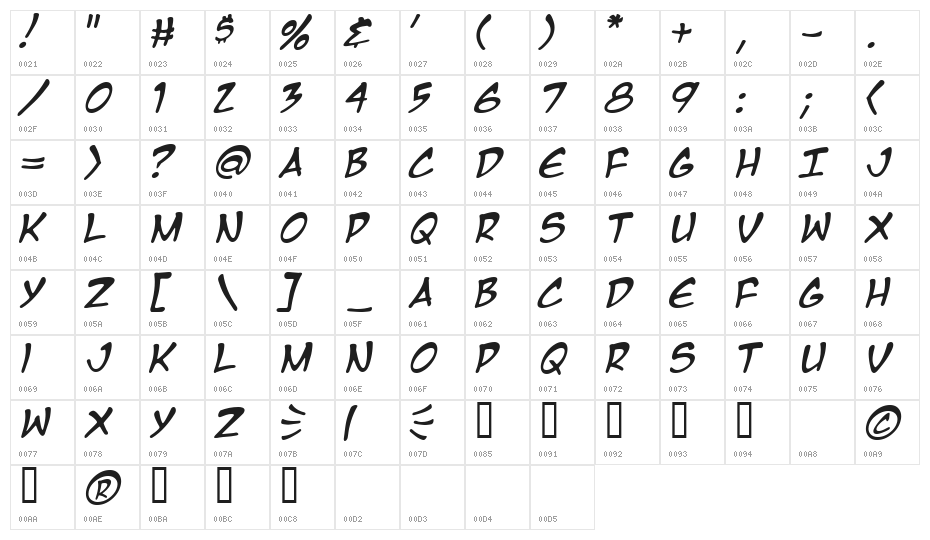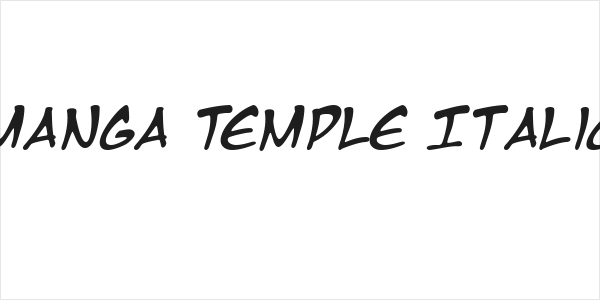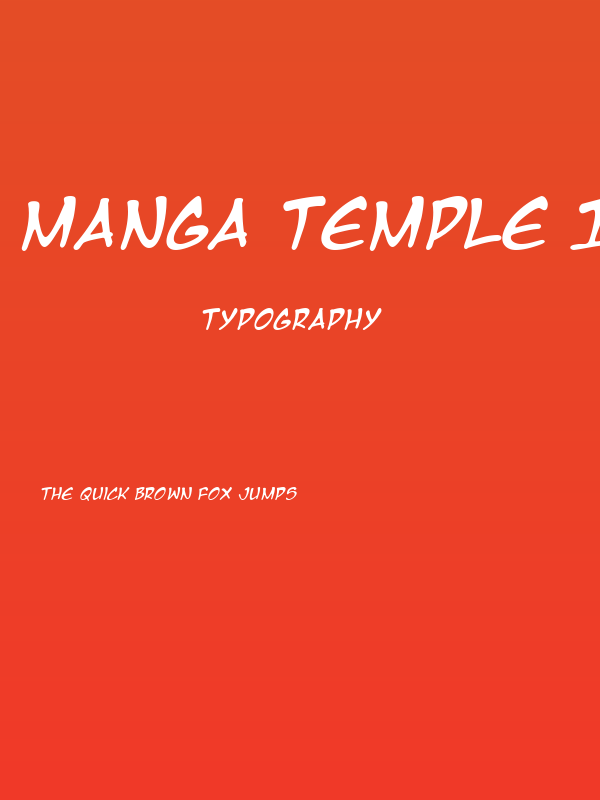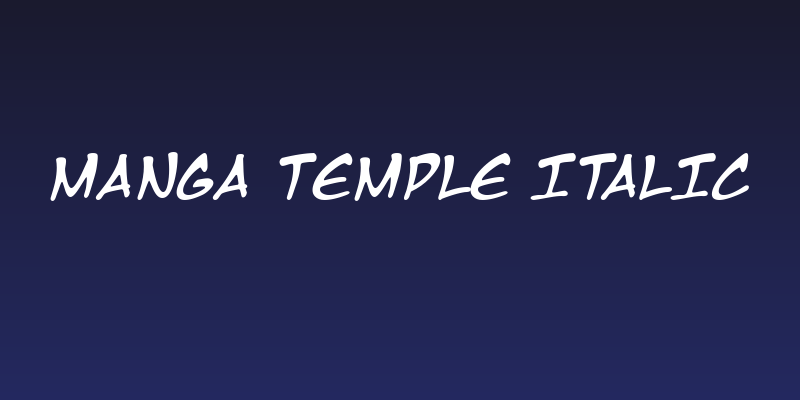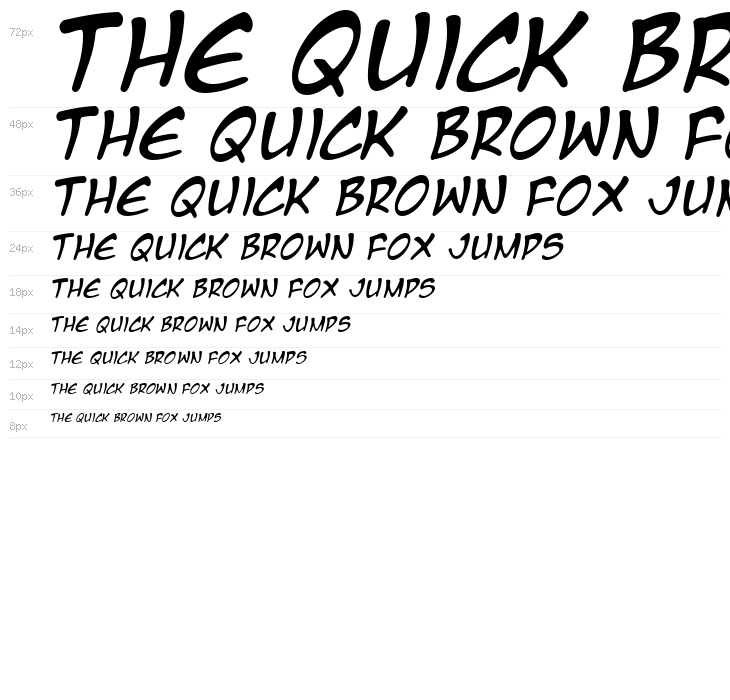
Manga Temple Italic Font
Manga Temple Italic Description
This font features a dynamic and energetic style, characterized by its italicized, handwritten appearance. The letters are bold and slightly slanted, giving a sense of motion and fluidity. The strokes are thick and consistent, providing a strong visual impact. The characters are well-spaced, ensuring readability while maintaining a casual and informal aesthetic. The font includes a full set of uppercase and lowercase letters, numbers, and a variety of special characters, making it versatile for different design needs.
| Proposed Projects | Ideal for comic book designs, playful branding, posters, and creative projects that require a lively and informal touch. |